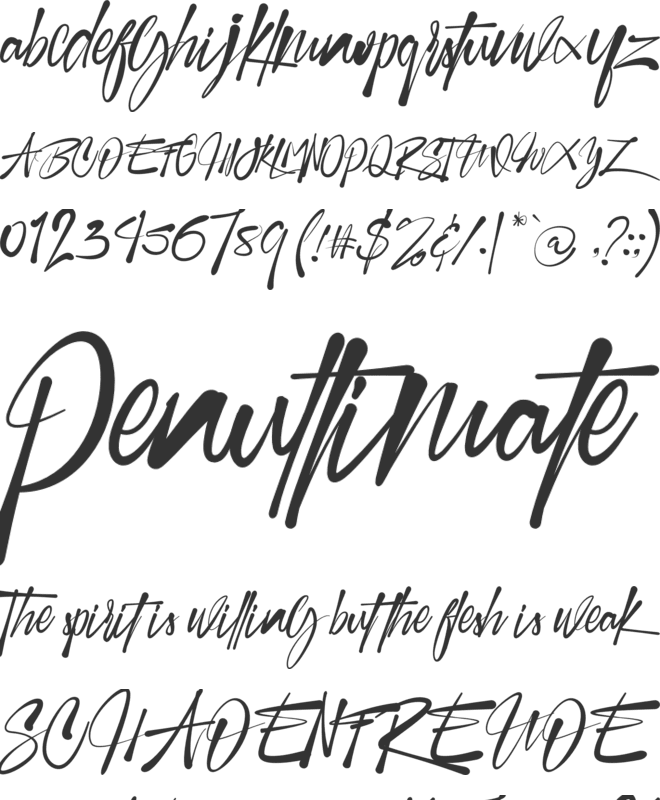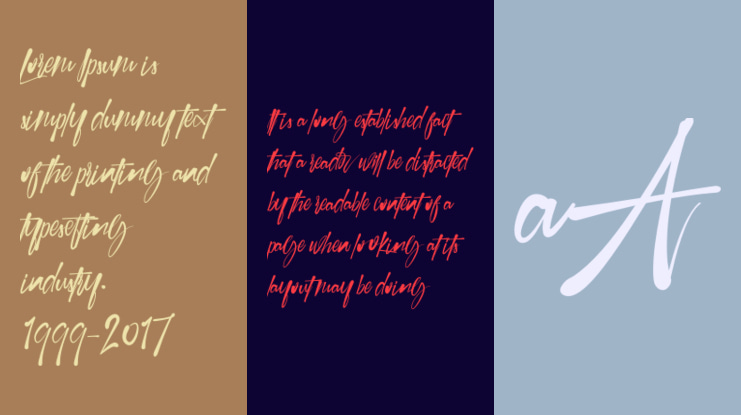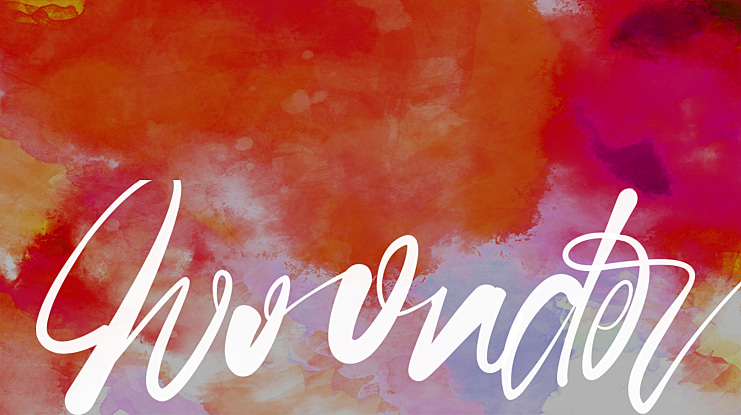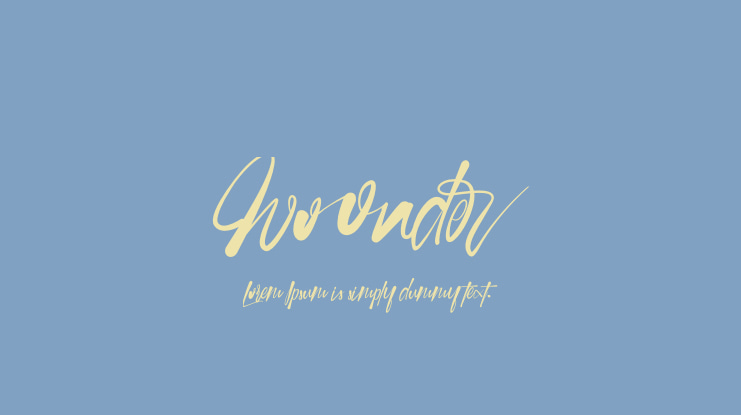
Woonder Font
Woonder Script Fonts, a handcrafted brush font! This bold, free-flowing, confident brush font is designed to be easily customized to your liking with 2 letter sets, also featuring swashes and some unique textures. Find a unique Woonder Script Font by adding a plus (+) to each letter and number and you'll have a cool letter.NOTE: This demo font is for PERSONAL USE ONLY! But any donation are very appreciated.Paypal account for donation : https://paypal.me/khaiunsLink to purchase full version and commercial license:https://www.myfonts.com/fonts/khaiuns/woonder/And follow my Behance for update: https://www.behance.net/khairunnas2308Thank you